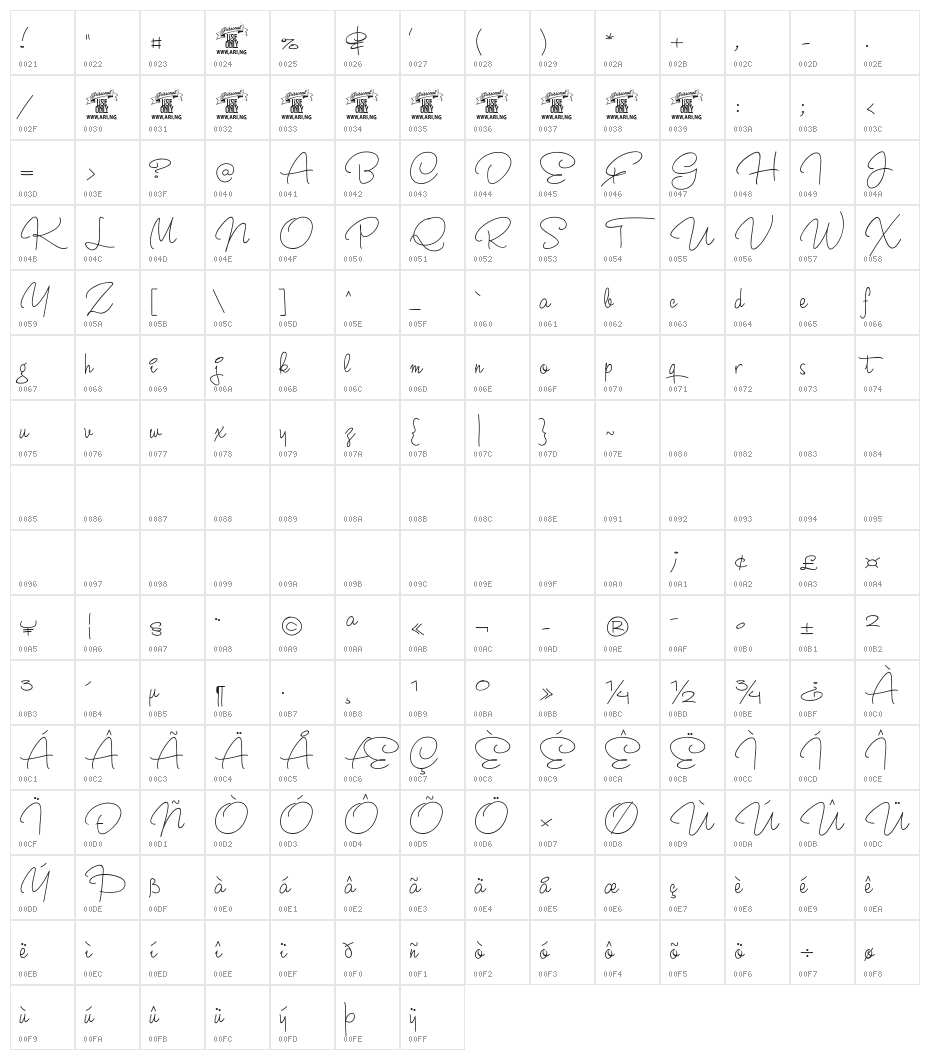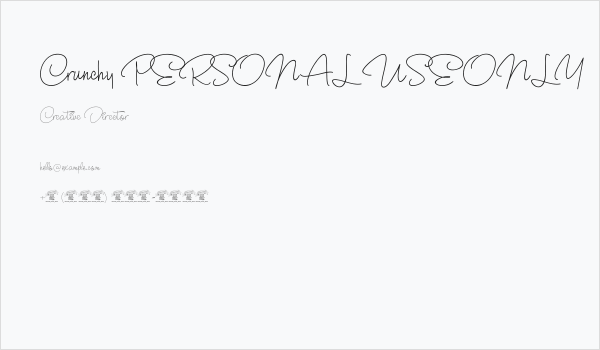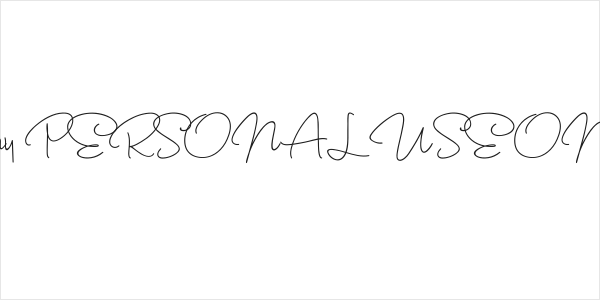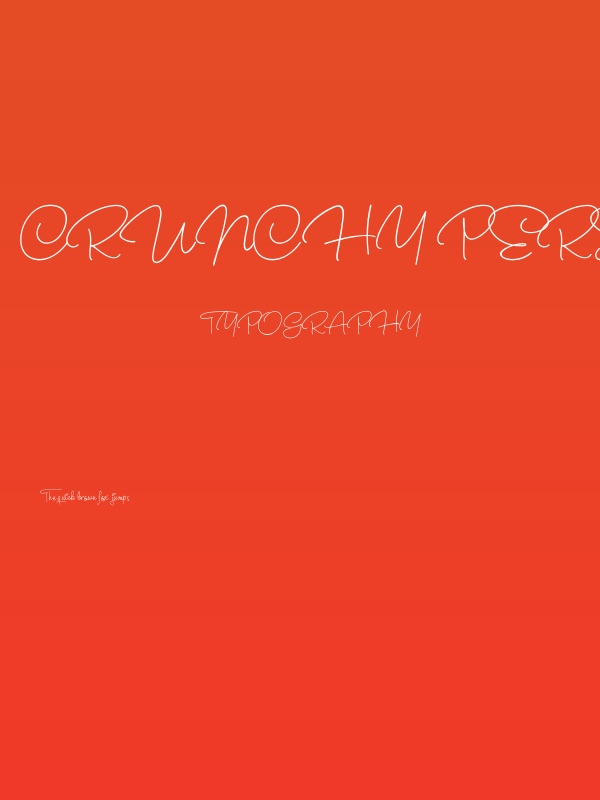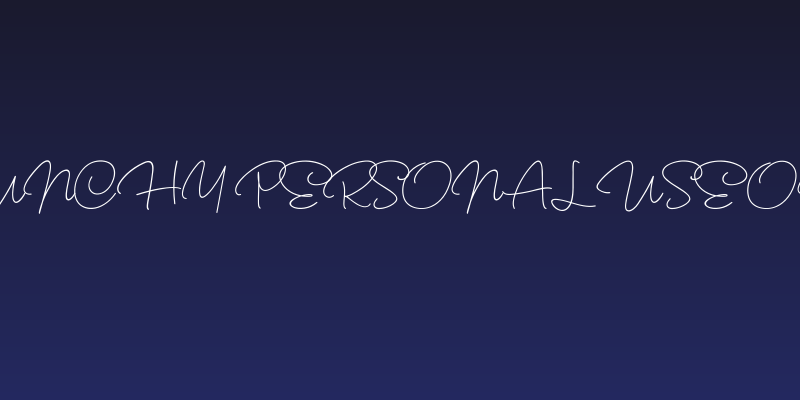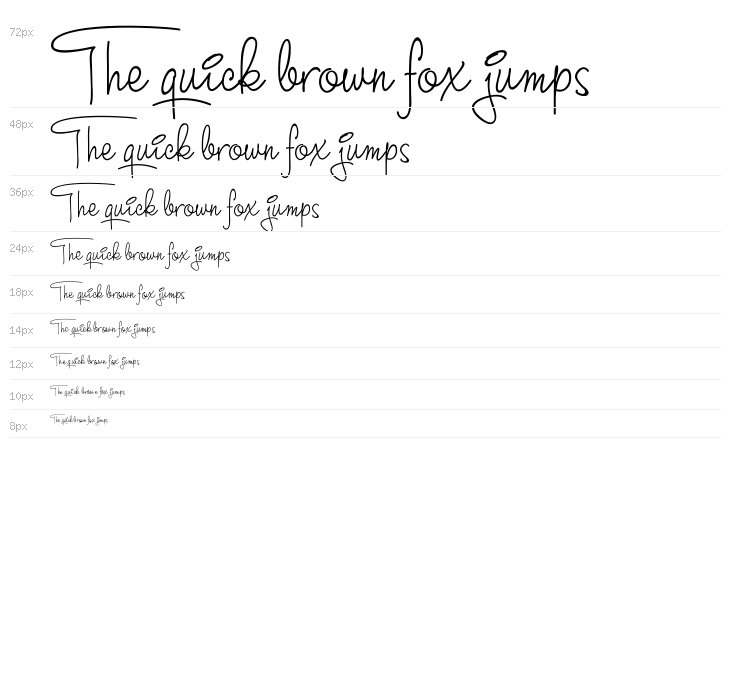
Crunchy PERSONAL USE ONLY Font
Crunchy PERSONAL USE ONLY Description
This font features a playful and whimsical script style with a handwritten appearance. The characters are connected with fluid strokes, giving it a casual and informal look. The uppercase letters are elegantly looped, while the lowercase letters maintain a consistent flow, enhancing its organic feel. The font's thin lines and smooth curves create a sense of lightness and movement. It includes a full set of uppercase and lowercase letters, numerals, and a variety of special characters, making it versatile for creative projects. The overall design is charming and expressive, suitable for adding a personal touch to any design.
| Proposed Projects | Ideal for greeting cards, invitations, personal branding, and creative projects that require a personal touch. |